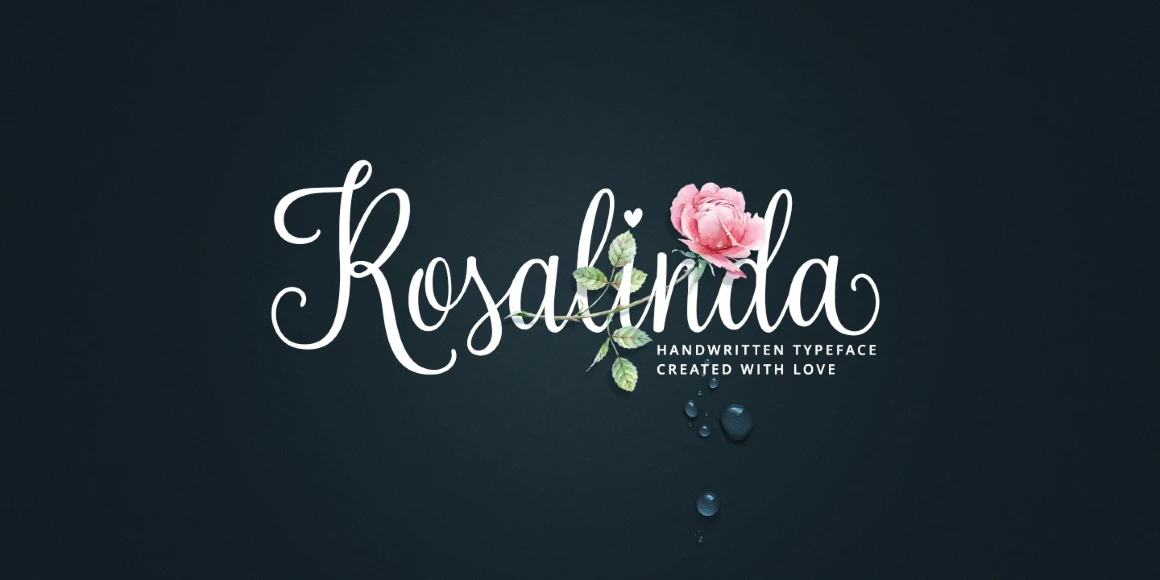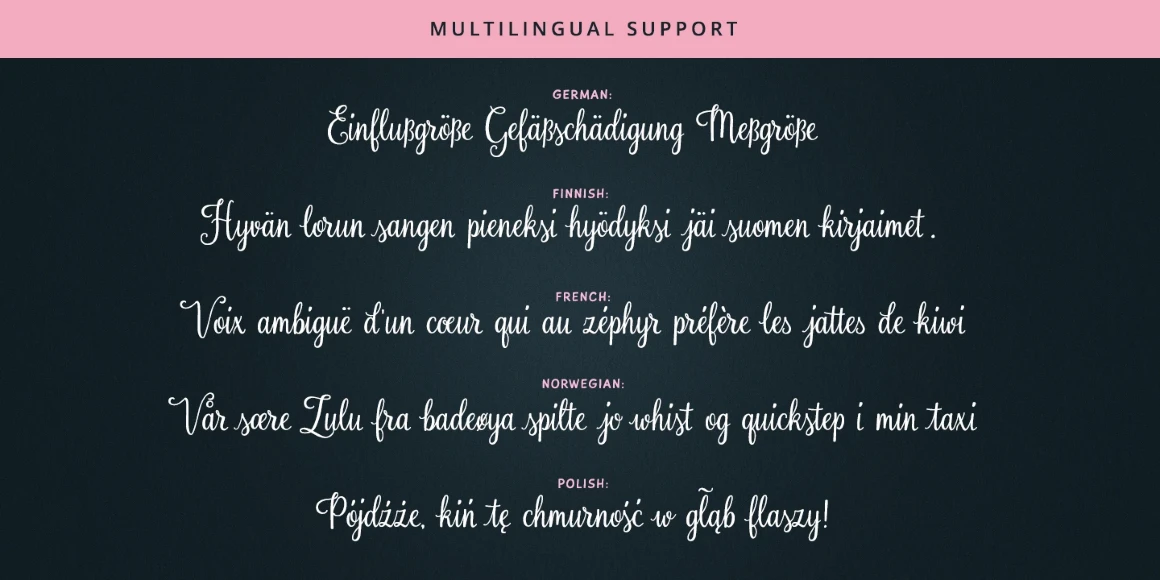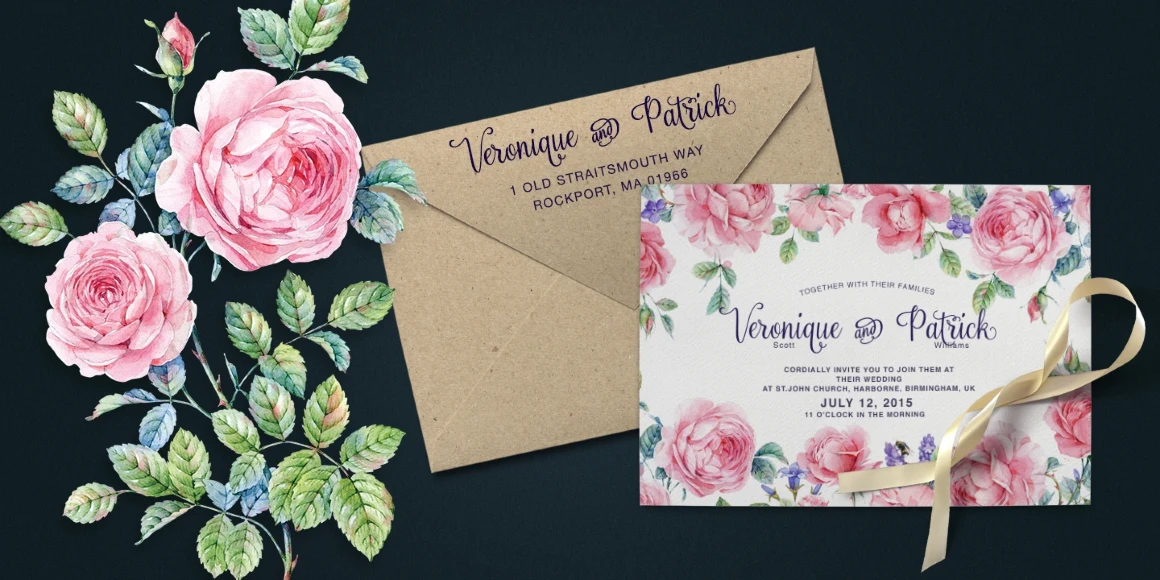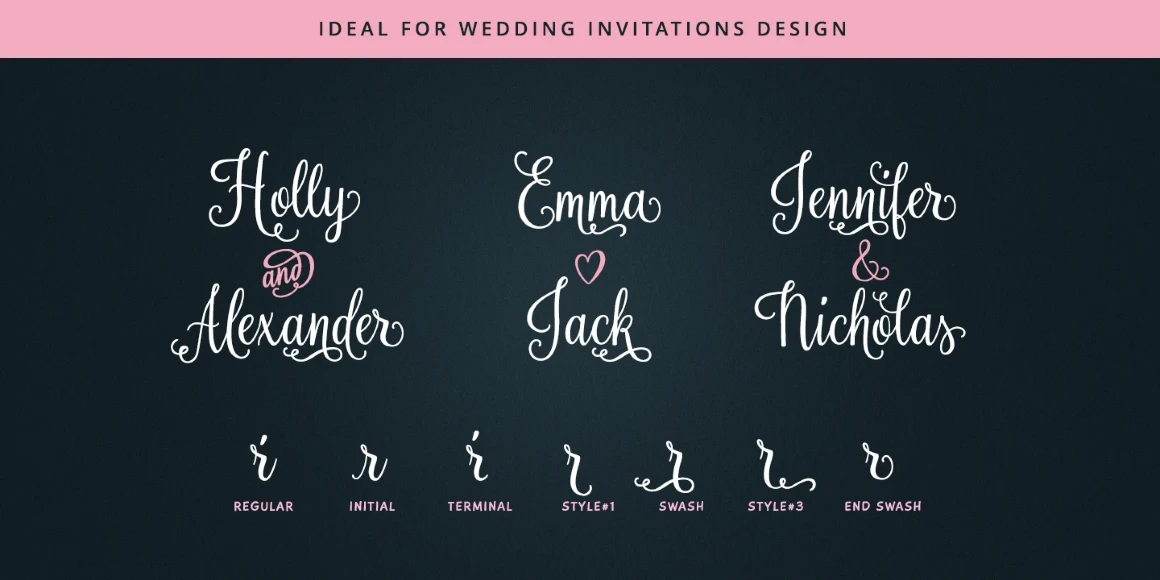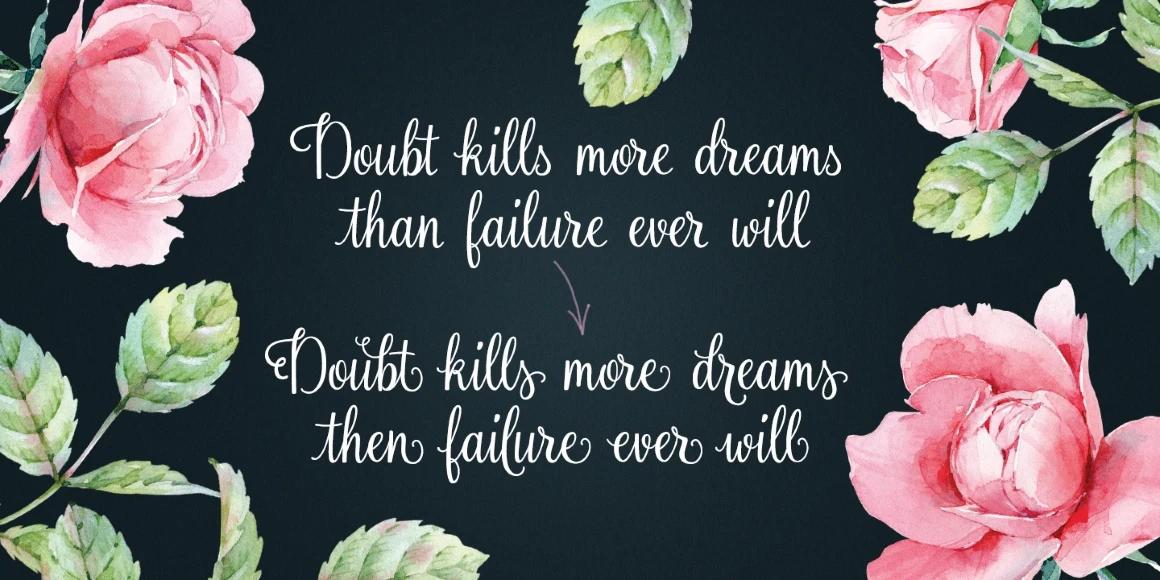
Rosalinda
By Elena Genova
Rosalinda Regular
Rosalinda is a new handwritten typeface designed with wedding invitations in mind but can be used for various purposes like t-shirt design, logos, quotes design etc. The font contains 900+ characters and is best used in an Opentype-aware application such as Adobe Illustrator, Adobe InDesign, MSWord, Adobe Photoshop etc.